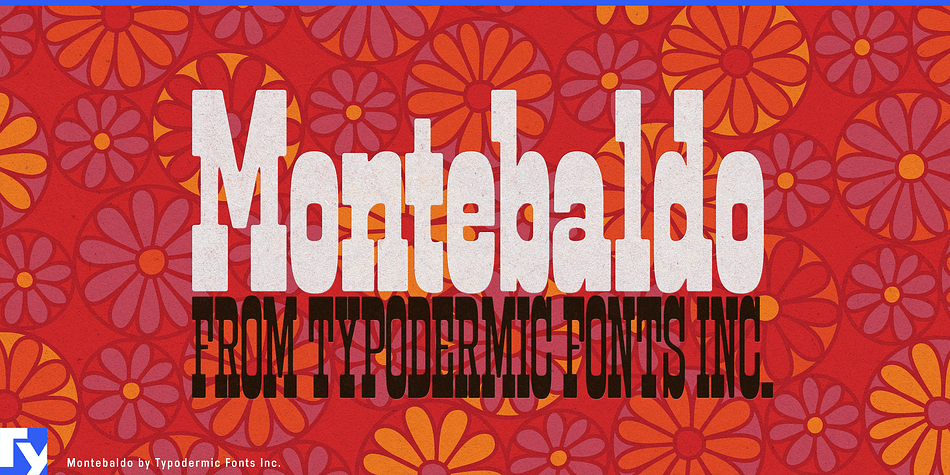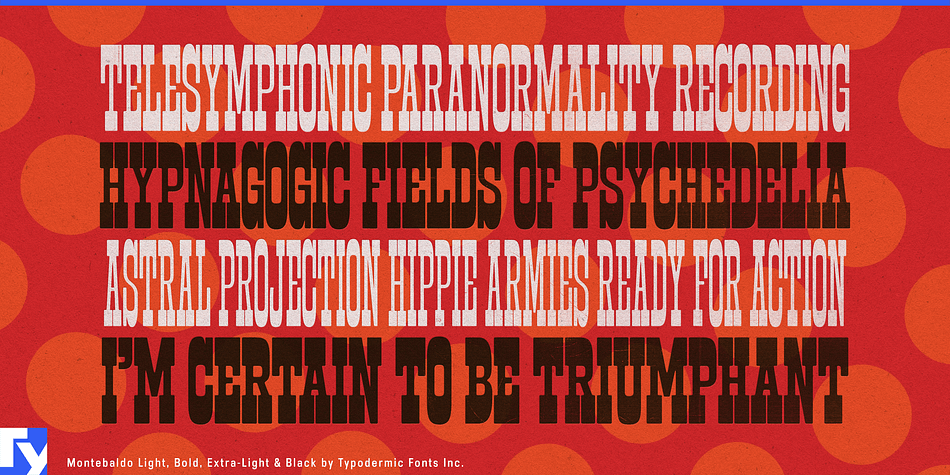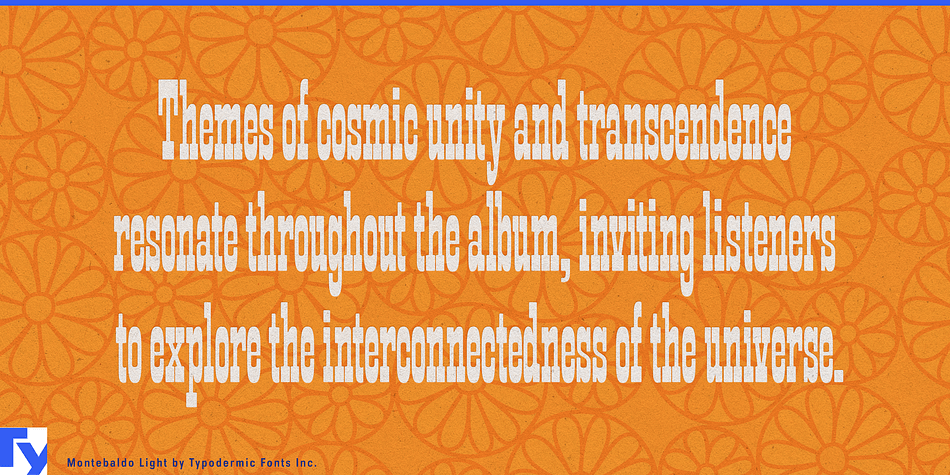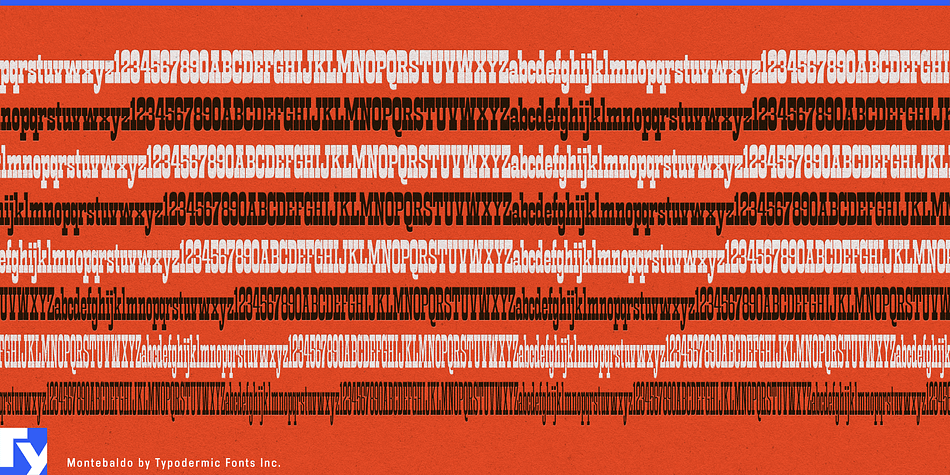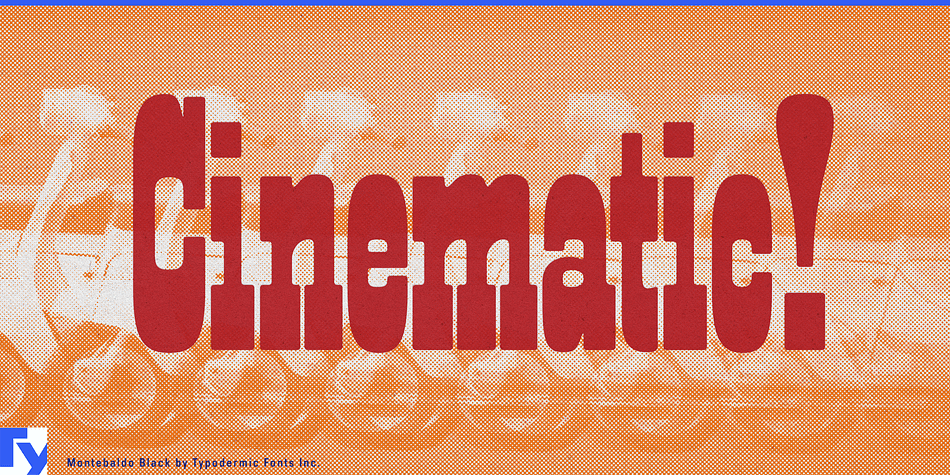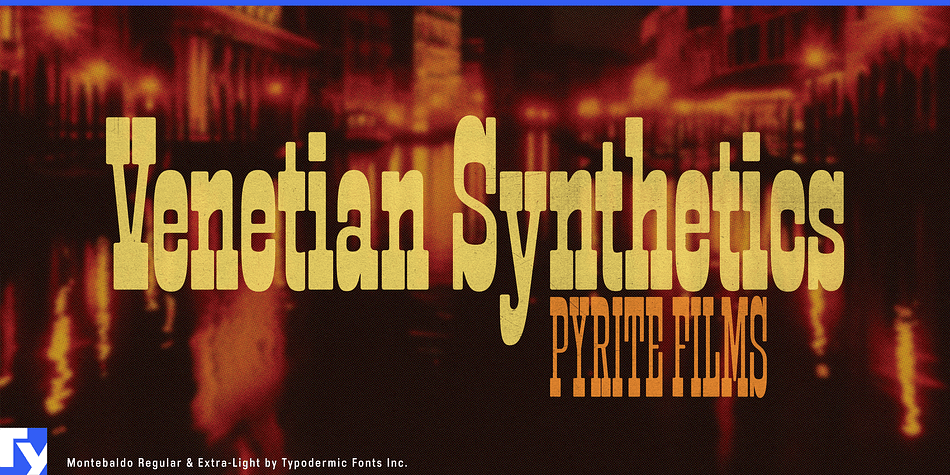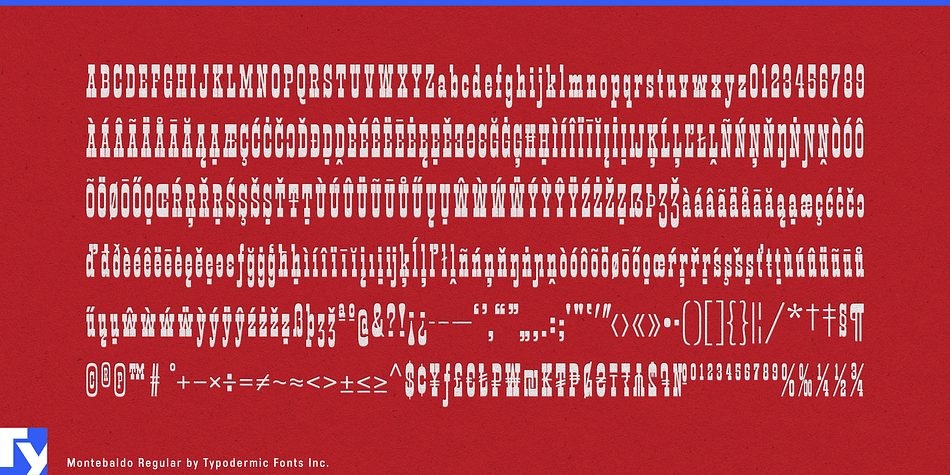
Montebaldo
Some headline systems struggle when the words refuse to cooperate. A short title leaves too much empty space; a long one suddenly has to shrink. Montebaldo approaches that problem through a coordinated relationship between weight and width: lighter styles are narrower, while heavier styles spread out. That lets designers use emphasis to help different all-caps lines approach a common measure instead of treating every title as an isolated fitting problem.
A short word can become broad and heavy; a long phrase can move toward a lighter, more compressed treatment. Stacked together, those contrasts create solid headline blocks while preserving hierarchy. Montebaldo is strongest in uppercase, where its unusual proportions and inverse-slab construction turn words into architectural shapes rather than ordinary lines of text.
Exhibitions and cultural identities are especially good territory. An architecture biennale, design museum, photography festival, or contemporary-art programme may need dozens of titles with radically different lengths, yet entrance walls, banners, catalogue covers, tickets, directional panels, and social graphics still have to belong to one system. Montebaldo gives designers a repeatable way to make those titles occupy comparable visual territory without simply reducing everything to the size of the longest phrase.
Fashion and beauty campaigns present a similar challenge. Collection names, fragrance lines, treatment ranges, and seasonal phrases move between storefront windows, cartons, shopping bags, counter displays, transit advertising, and vertical mobile formats. Short names can become expansive and dense; longer ones can narrow and lighten while retaining the same underlying construction.
Architecture monographs, museum catalogues, photography books, design annuals, and film retrospectives can use the same logic across a series, while fragrance collections, architectural materials, designer lighting, and furniture ranges can apply it to product names across packaging, sample books, showroom walls, and trade-fair displays.
Montebaldo is most useful when headline length and emphasis need to work together. It turns uneven all-caps titles into deliberate blocks, making short words heavier and broader, long phrases lighter and narrower, and the differences between them part of the composition.